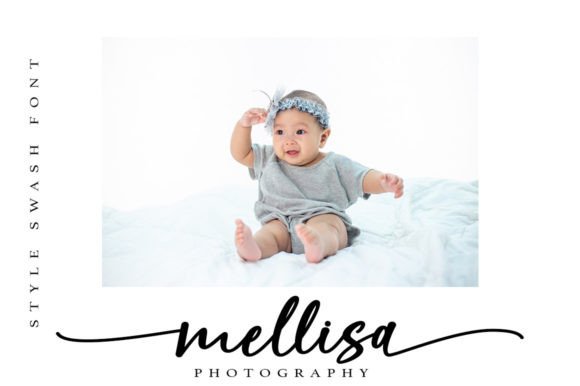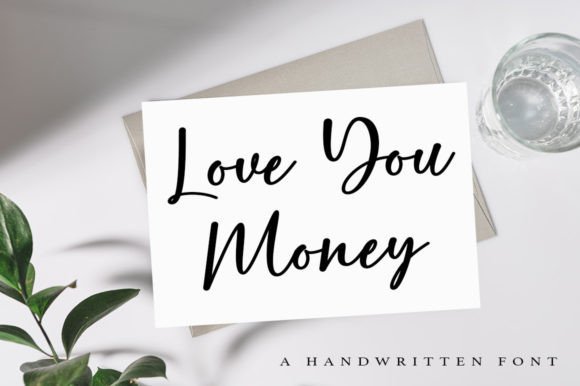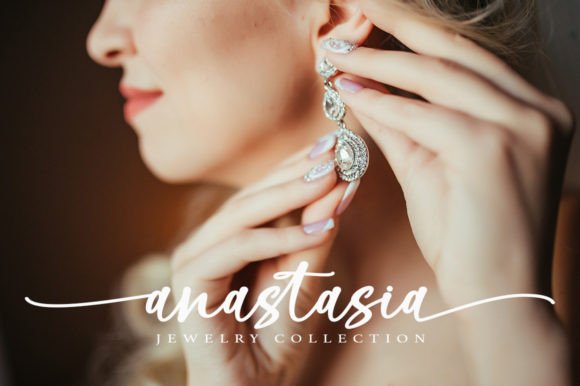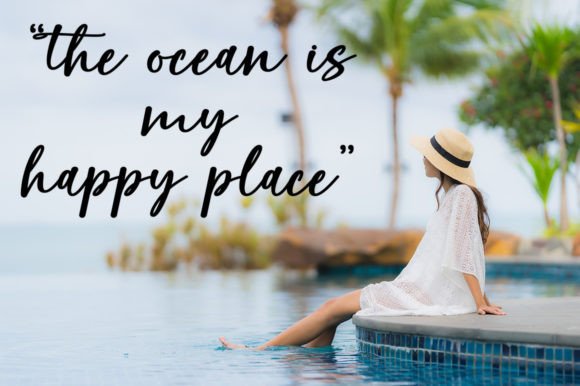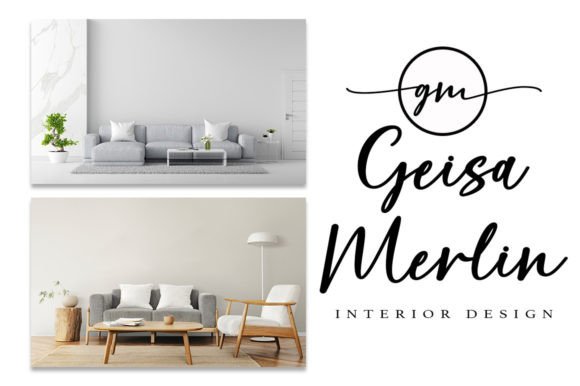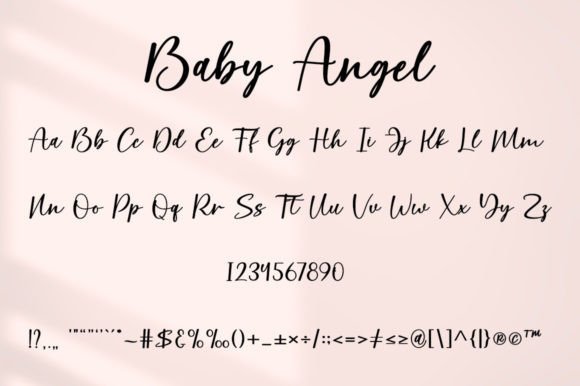
Baby Angel Font: The Ultimate Choice for Elegant and Charming Designs
Are you a designer or crafter looking for a font that exudes elegance and charm? Look no further than the Baby Angel Font. This beautiful font is perfect for adding a handwritten touch to your designs, making it ideal for a wide range of projects, from wedding invitations to business cards.
The Beauty of Baby Angel Font
Baby Angel Font feels equally charming and elegant, making it a versatile choice for any design project. Its delicate and cursive script is sure to capture the attention of your audience and leave a lasting impression. Whether you’re designing a wedding invitation, a thank you card, or a quote, this font is sure to add a touch of sophistication and whimsy.
The Baby Angel Font is perfect for a wide range of design projects, including:
- Wedding invitations: Add a touch of elegance and romance to your wedding invitations with this beautiful font.
- Thank you cards: Express your gratitude in style with this charming font.
- Quotes: Add a touch of whimsy and sophistication to your quotes with this elegant font.
- Greeting cards: Create beautiful and heartfelt greeting cards with this font.
- Logos: Add a touch of elegance and sophistication to your logo with this font.
- Business cards: Create a lasting impression with this charming and elegant font.
One of the best features of the Baby Angel Font is that it is PUA encoded. This means that you can access all of the glyphs and swashes with ease, making it simple to customize your designs and add your own personal touch.
Why Choose Baby Angel Font?
There are many reasons why you should choose Baby Angel Font for your design projects. Here are just a few:
- Elegant and charming: This font is sure to add a touch of sophistication and whimsy to your designs.
- Versatile: Perfect for a wide range of design projects, from wedding invitations to business cards.
- PUA encoded: Easy access to all glyphs and swashes, making it simple to customize your designs.
- Handwritten touch: Adds a personal and human touch to your designs.
Tips for Using Baby Angel Font
Here are a few tips for using Baby Angel Font in your design projects:
- Use it sparingly: This font is perfect for adding a touch of elegance and whimsy to your designs, but use it sparingly to avoid overwhelming your audience.
- Pair it with other fonts: Experiment with pairing Baby Angel Font with other fonts to create a unique and visually appealing design.
- Experiment with colors: Try out different colors and textures to add depth and interest to your designs.
In conclusion, the Baby Angel Font is a beautiful and versatile font that is perfect for adding a touch of elegance and charm to your design projects. With its delicate and cursive script, PUA encoding, and handwritten touch, this font is sure to capture the attention of your audience and leave a lasting impression. Whether you’re a designer or crafter, this font is a must-have in your font collection.